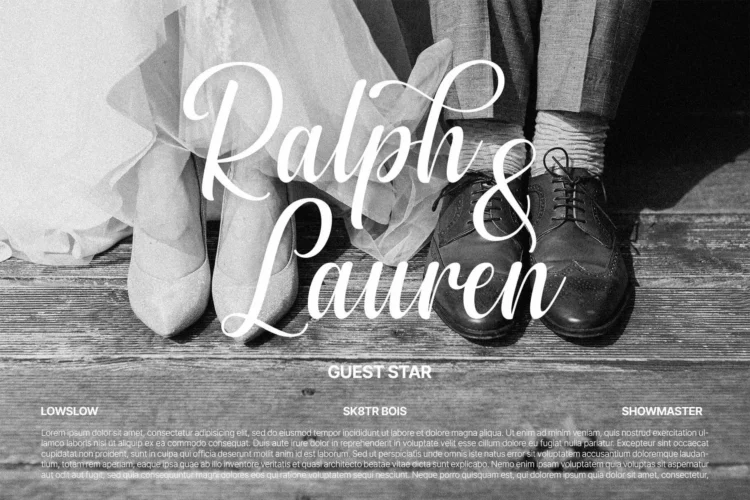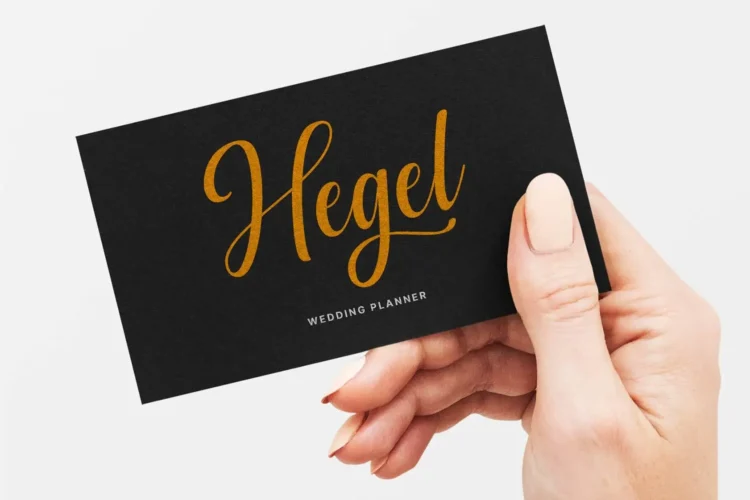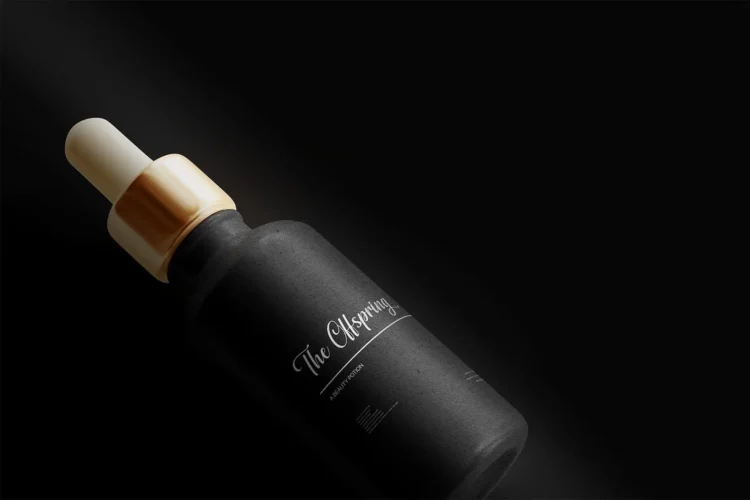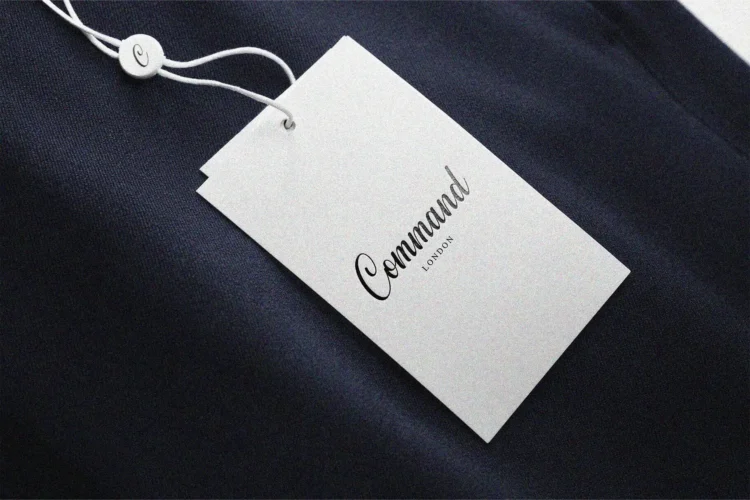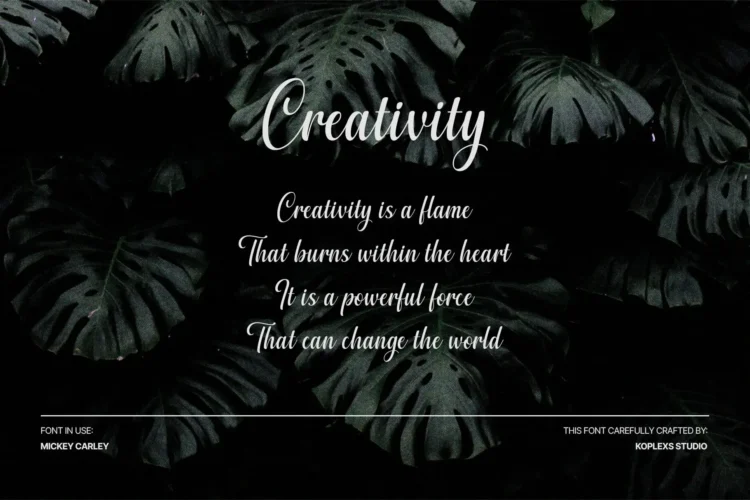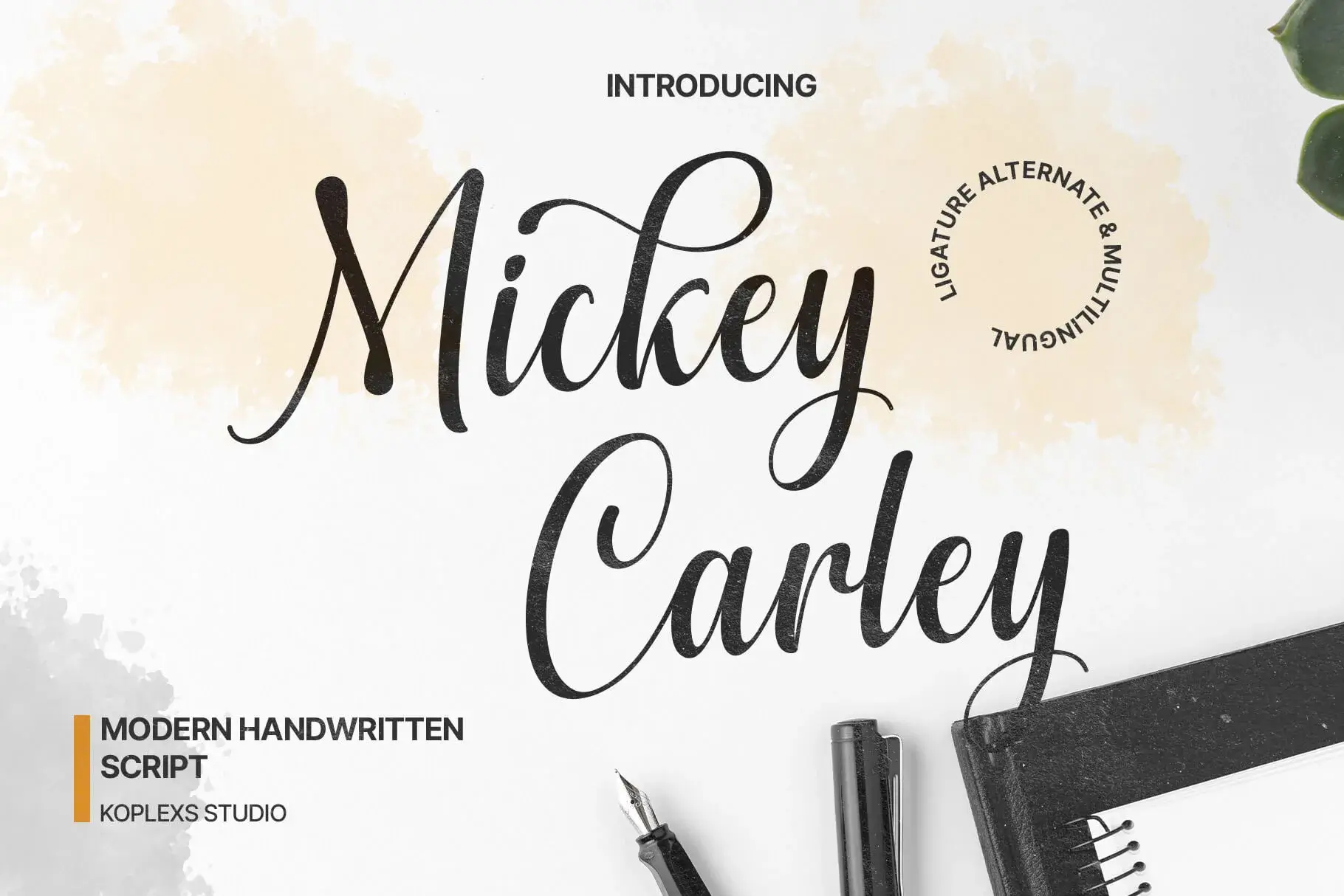
Mickey Carley Font – Elegant Handwritten Script for Branding, Wedding & Luxury Design
Mickey Carley Font is a modern handwritten script font that beautifully blends sophistication, creativity, and emotion. With smooth, flowing curves and stylish ligatures, this Signature font brings a graceful, organic feel to any design. Perfect for those who appreciate elegant font aesthetics, Mickey Carley adds a touch of luxury and modern refinement to every word.
Crafted with precision, this cursive font delivers a timeless handwritten charm that stands out in branding, wedding invitations, and high-end packaging. Whether you’re designing a cosmetic font for beauty labels or creating a logo font for fashion brands, its clean, aesthetic calligraphy ensures your message feels both personal and professional.
- Alternates
- Ligatures
Mickey Carley Font is versatile and works beautifully for :
- Wedding invitations & stationery
- Beauty & cosmetic product packaging
- Personal branding and logos
- Photography watermarking
- Social media posts & aesthetic quotes
- Greeting cards, love letters, or poetry
- Fashion and boutique design projects
Mickey Carley Font combines the allure of modern fonts with the timeless beauty of calligraphy font design. It’s an aesthetic font that exudes emotion, personality, and luxury perfect for making your creative work unforgettable.